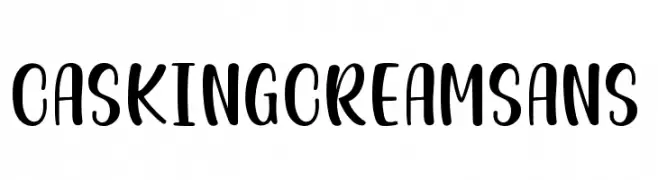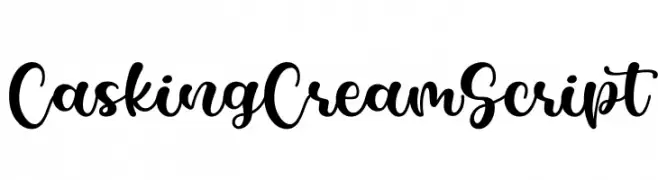
A playful, handwritten script font with fluid strokes and a lively appearance.
A playful, bold font with rounded edges and a hand-drawn style.
A dynamic, expressive handwritten font with fluid strokes and elegant slant.
A fluid, cursive script font with elegant, sweeping strokes.
A bold, playful handwritten font with rounded, slightly slanted characters.
A bold, flowing script font with elegant curves and smooth connections.
A bold, dynamic script font with a playful and sophisticated flair.
A graceful, handwritten script font with fluid, connected characters.